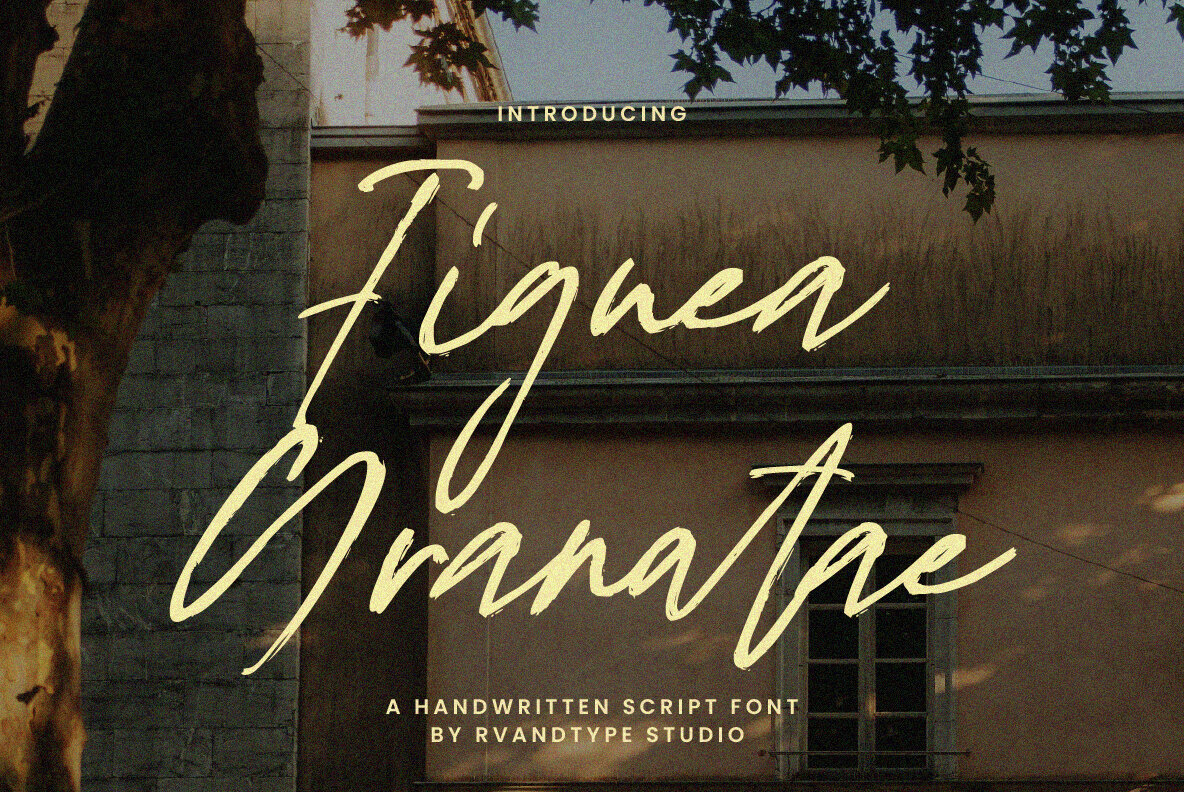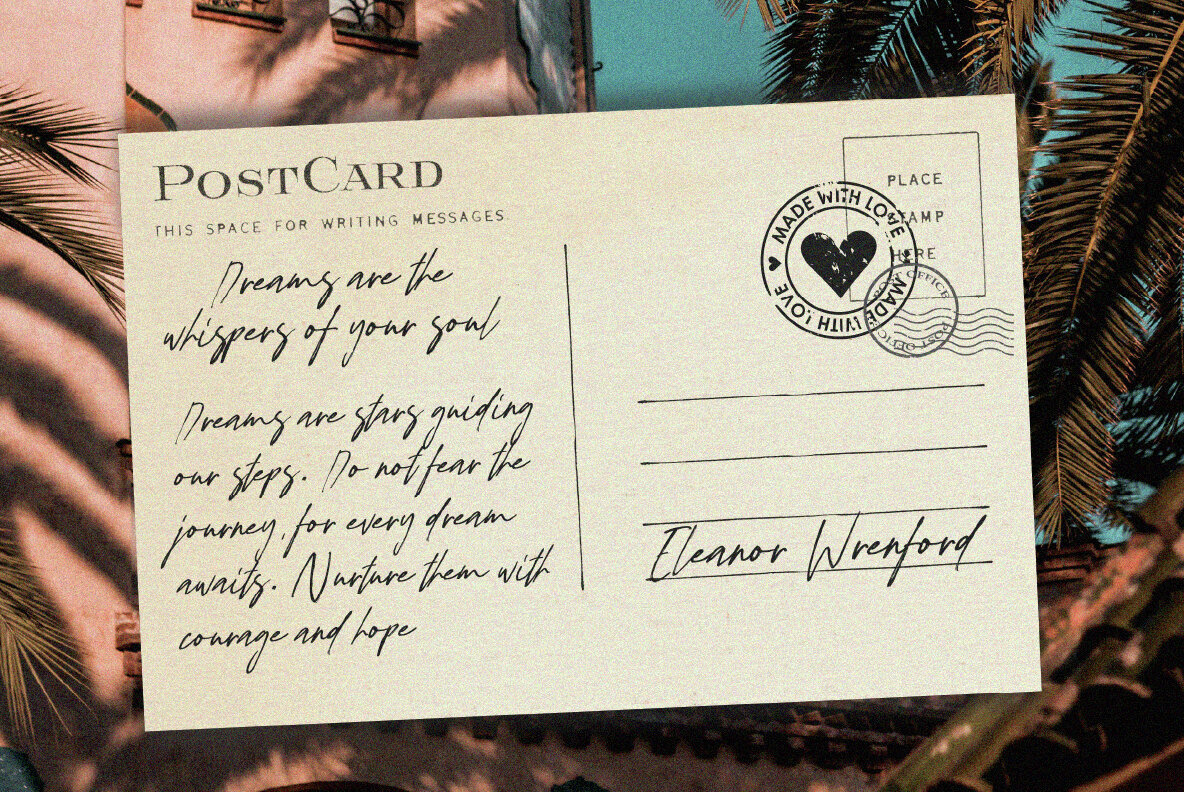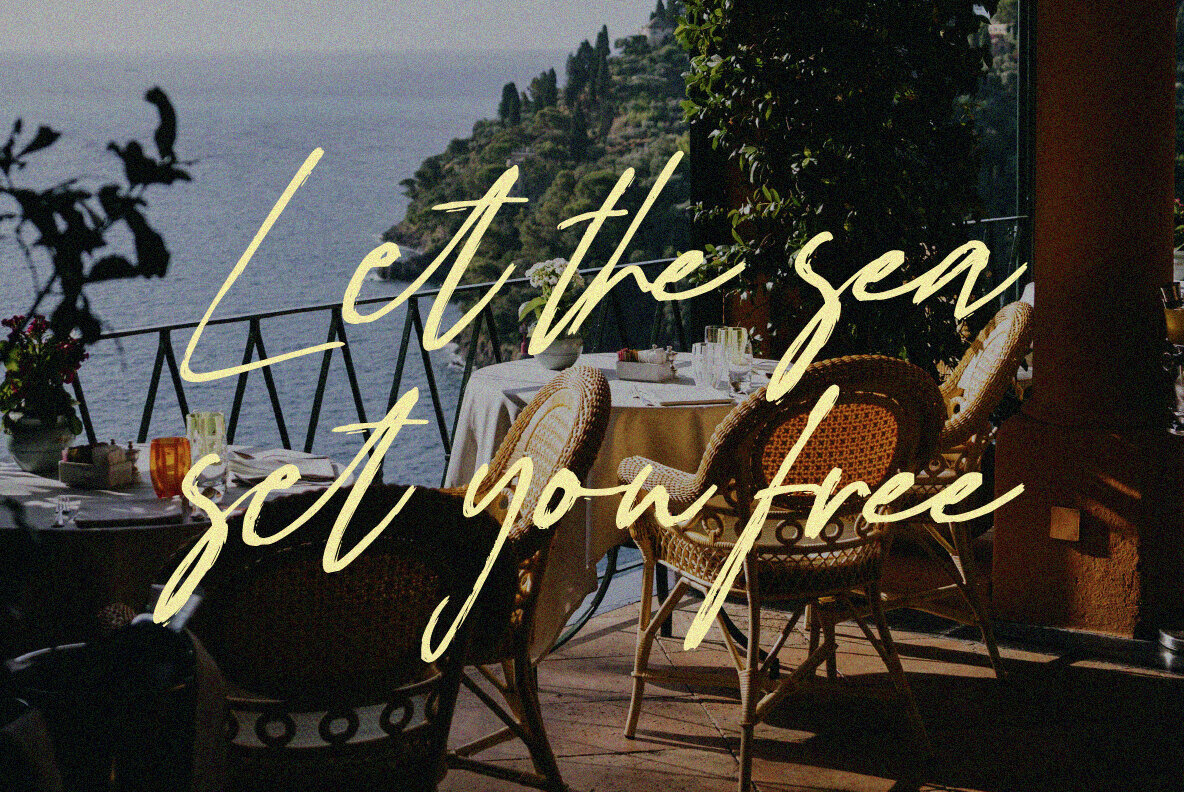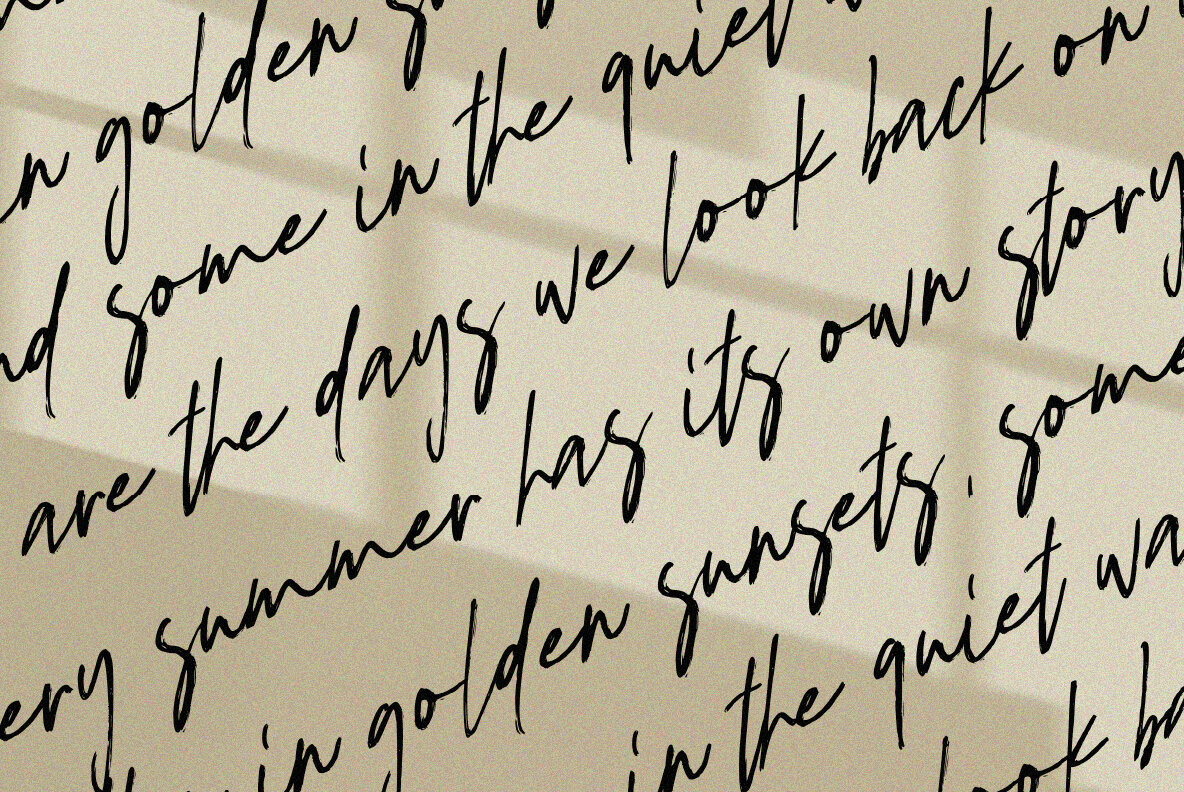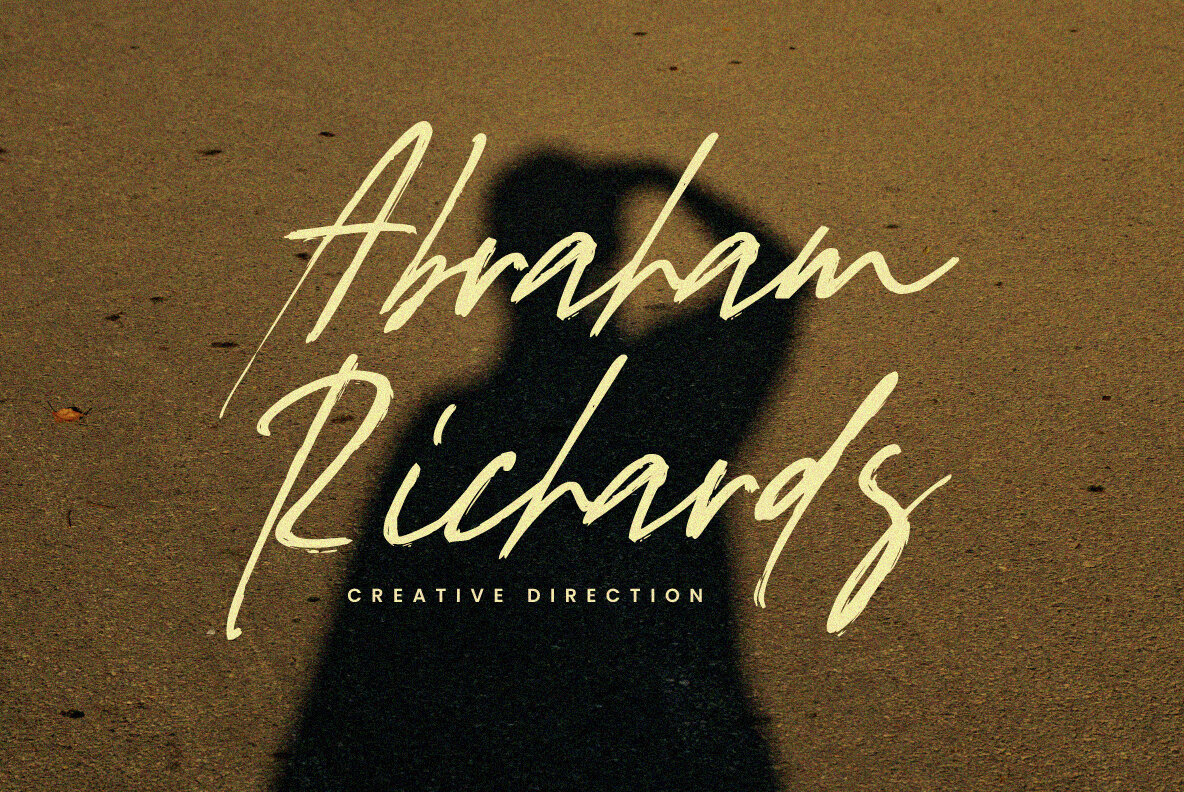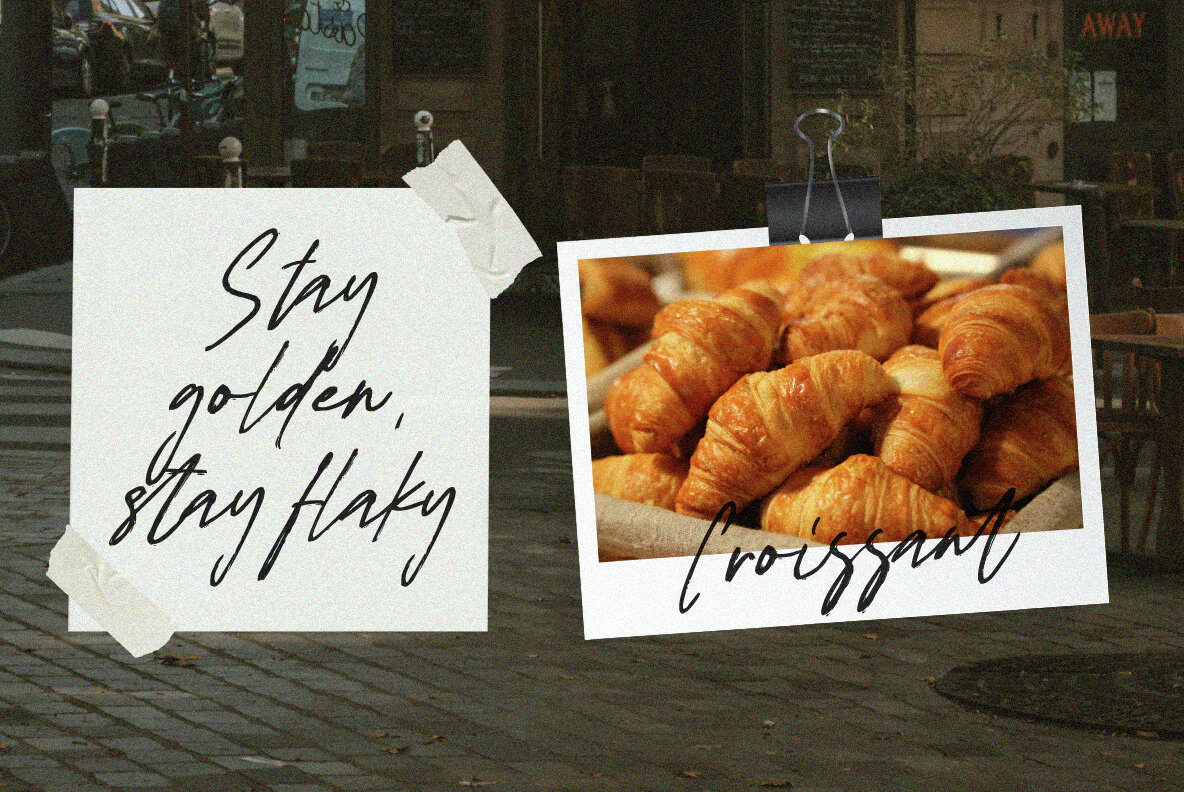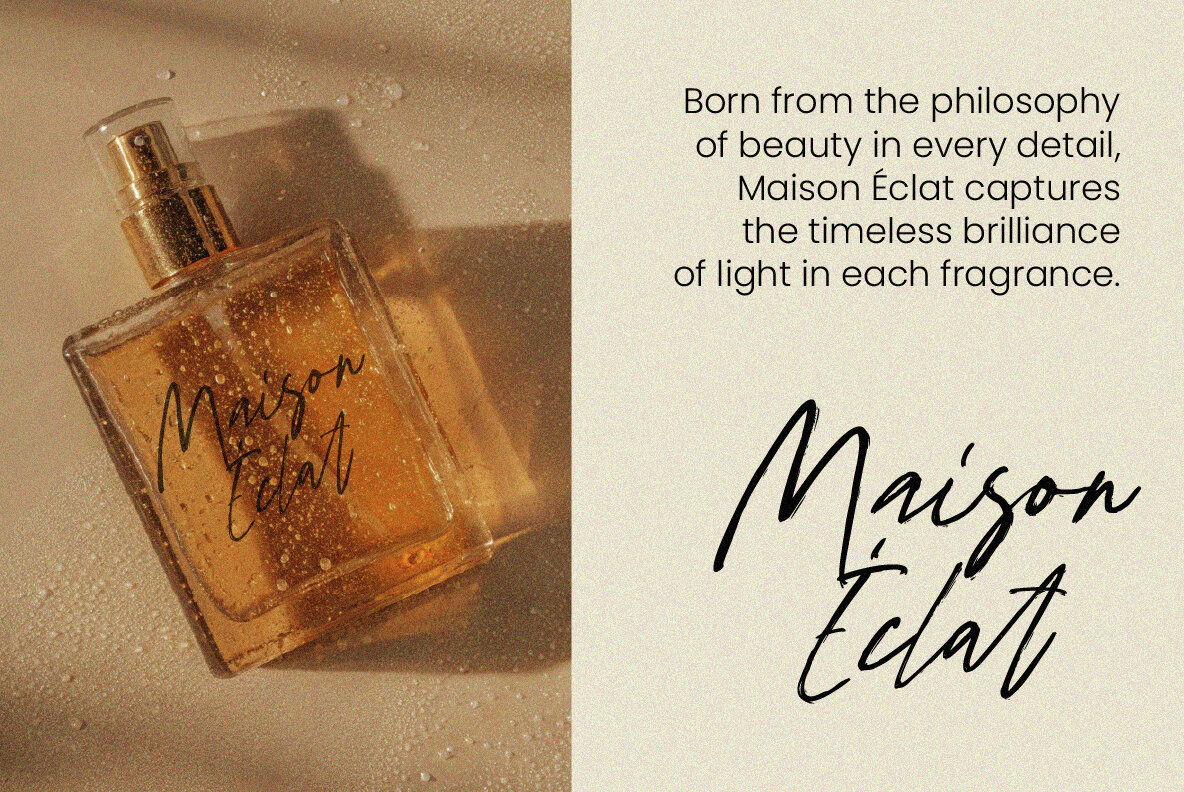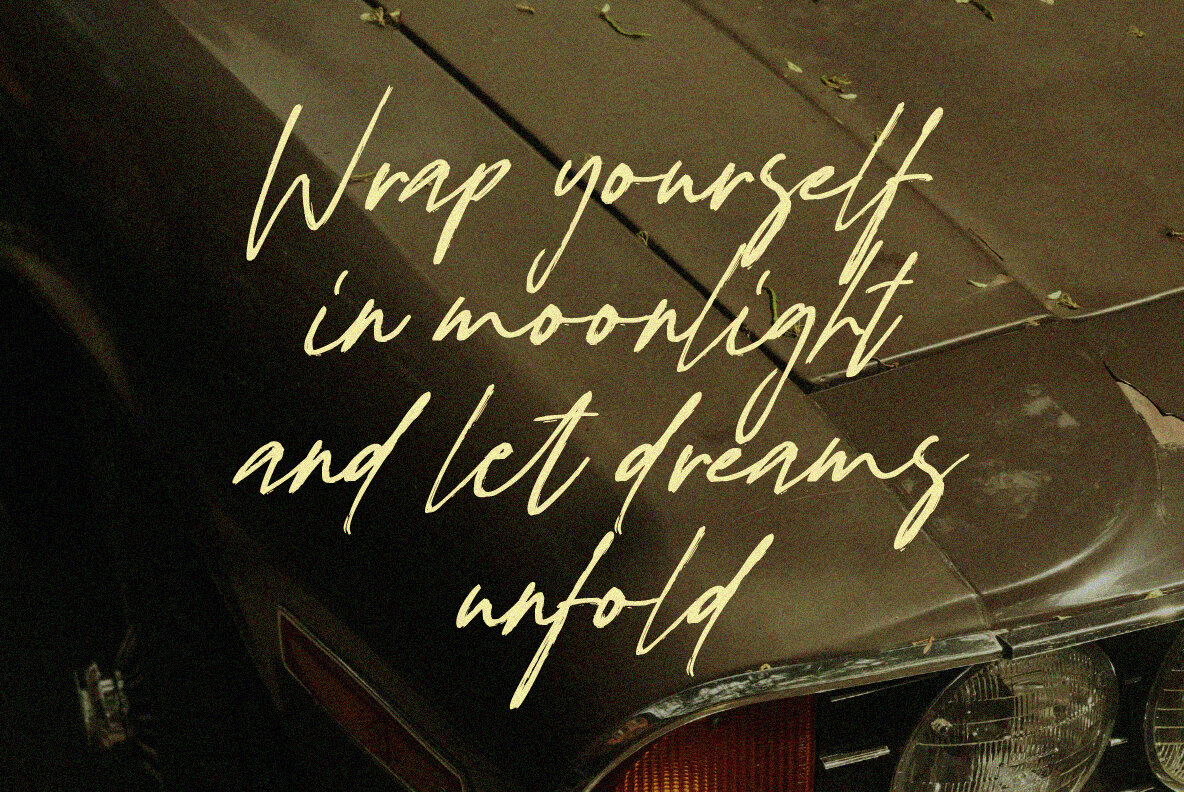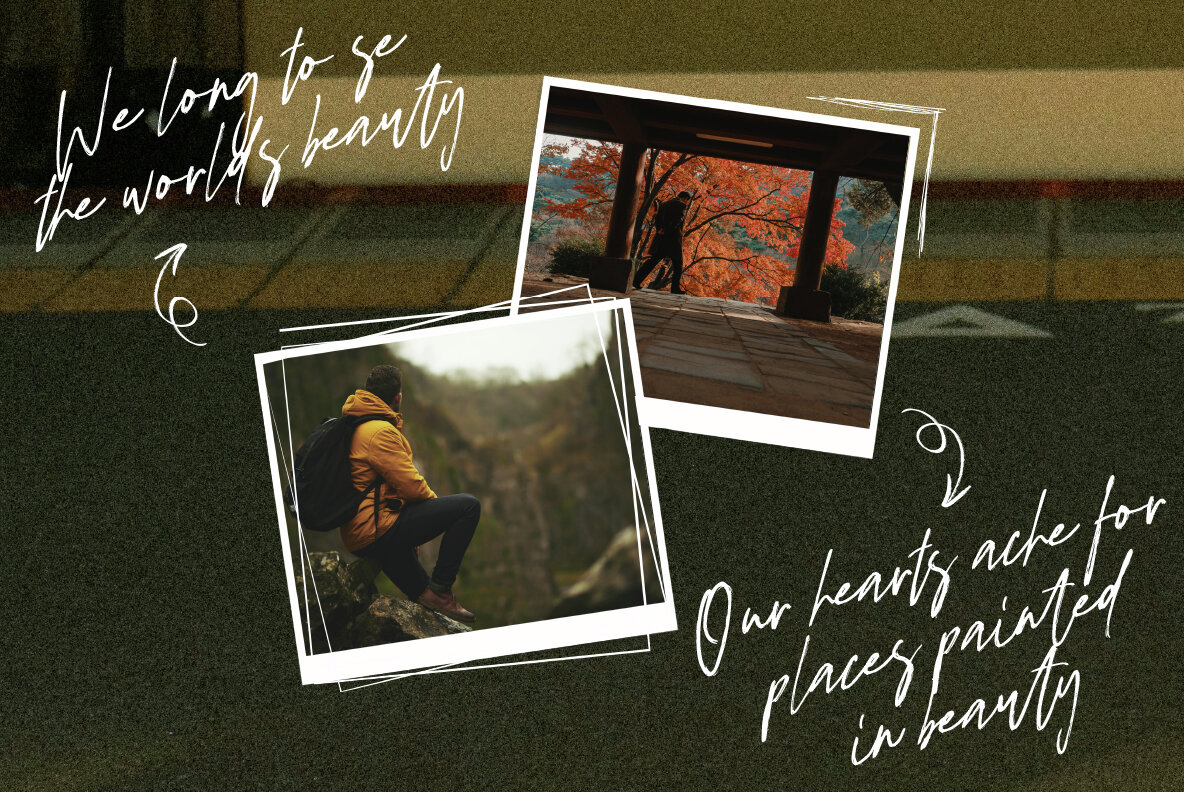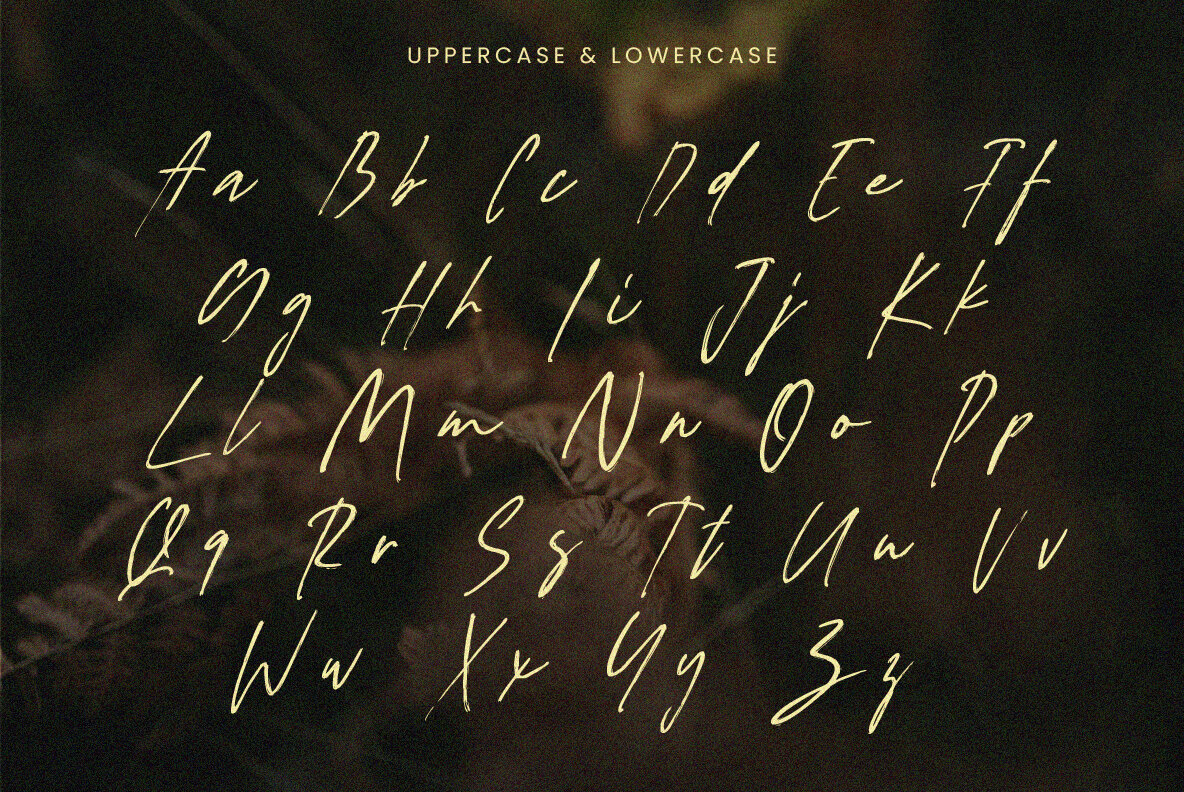
Figuea Granatae Font
Figuea Granatae
The Figuea Granatae script font beautifully melds the authenticity of natural penmanship with a touch of contemporary elegance. Designed with expressive strokes and flowing curves, this font brings a warm, personal feel to various projects. Each letter possesses subtle imperfections akin to real handwriting, infusing your text with an authentic, lively appearance. With its sleek yet organic style, Figuea Granatae is incredibly versatile. It's an ideal choice for creating logos, branding materials, packaging, wedding invitations, greeting cards, posters, and social media content. Its casual yet sophisticated look adapts effortlessly to both modern and timeless design themes. A hallmark of Figuea Granatae is its harmonious balance between uppercase and lowercase letters, offering seamless readability while maintaining a handcrafted aesthetic. Textured strokes provide a sense of freedom and spontaneity, reminiscent of writing under a Mediterranean sun.Figuea Granatae: A Handwritten Script with Modern Elegance
The Figuea Granatae font embodies rustic charm and coastal elegance, making it an excellent choice for designers seeking authenticity and sophistication in their creative endeavors.